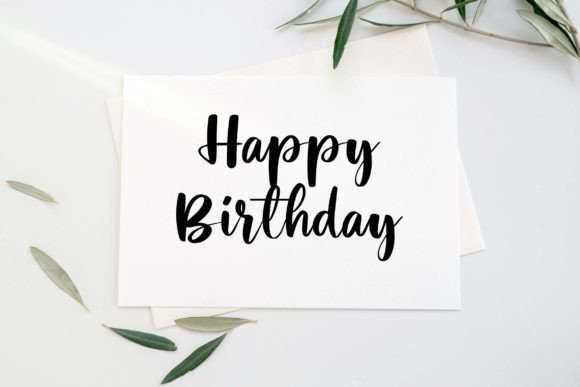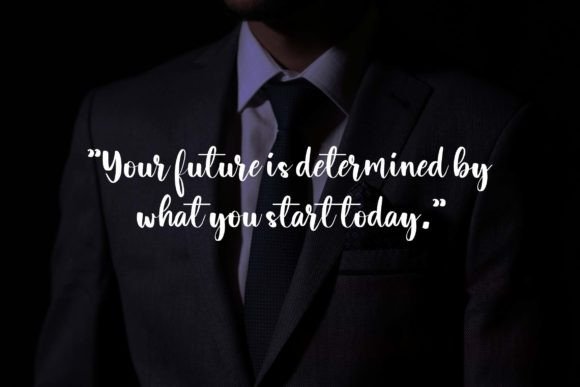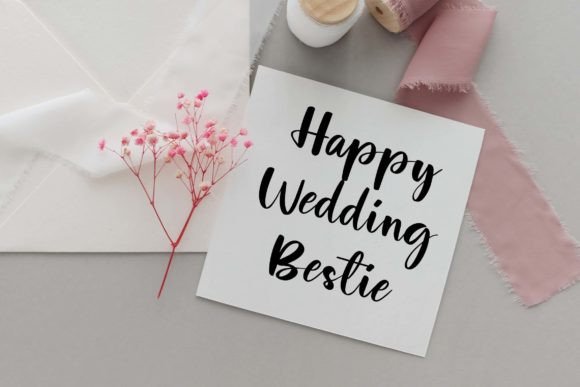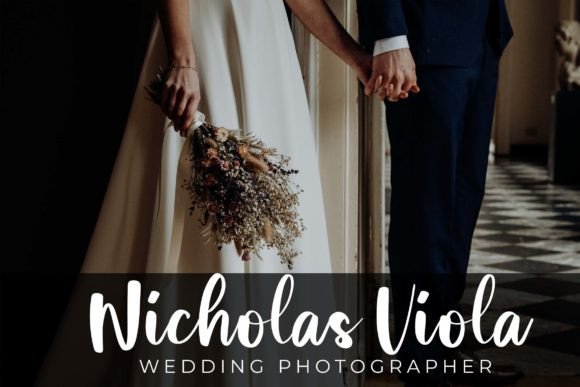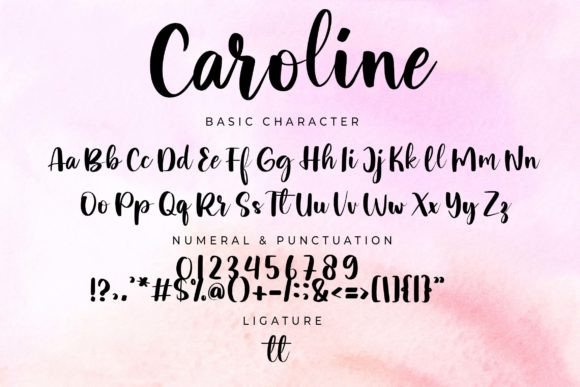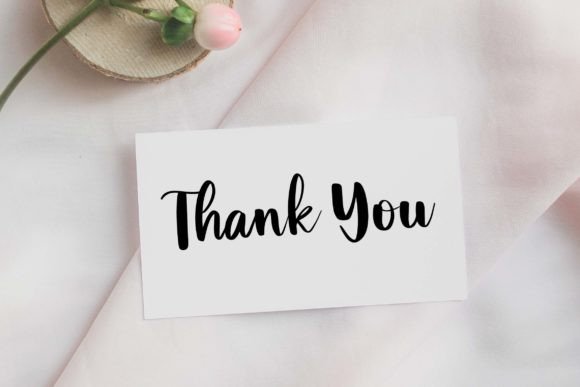
Discover the Elegance of Caroline Font: Elevate Your Designs with a Touch of Sophistication
In the world of typography, few fonts manage to convey the perfect blend of charm and elegance. Caroline Font is one such gem that has captured the hearts of designers and crafters alike. With its unique, handwritten aesthetic, Caroline Font feels equally charming and elegant, making it an ideal choice for a variety of design projects. In this article, we’ll explore the beauty of Caroline Font and how it can elevate your designs with a touch of sophistication.
The Beauty of Caroline Font
Caroline Font boasts a distinctive, cursive style that exudes elegance and refinement. Its flowing lines, delicate strokes, and precise lettering make it a stunning addition to any design. Whether you’re working on wedding invitations, thank you cards, quotes, greeting cards, logos, business cards, or any other project that requires a handwritten touch, Caroline Font is an excellent choice.
One of the standout features of Caroline Font is its versatility. It can be used in a wide range of design projects, from formal events like weddings and galas to more casual applications like blog headers and social media graphics. Its adaptability makes it a valuable asset for designers and crafters who want to add a personal touch to their work.
Wedding designers and event planners, rejoice! Caroline Font is a match made in heaven for your projects. Its elegant, cursive script is perfect for wedding invitations, save-the-date cards, and other stationery. It adds a touch of sophistication and romance to your designs, making them truly unforgettable.
Adding a Personal Touch to Your Designs
In today’s digital age, it’s easy to get lost in the sea of generic fonts and templates. Caroline Font offers a refreshing alternative, allowing you to add a personal touch to your designs. Its unique, handwritten aesthetic makes your work stand out from the crowd, giving it a distinctive and memorable quality.
Why Designers and Crafters Love Caroline Font
So, what makes Caroline Font a favorite among designers and crafters? Here are a few reasons:
- Elegance**: Caroline Font exudes elegance and sophistication, making it perfect for high-end designs.
- Versatility**: Its adaptability makes it suitable for a wide range of design projects.
- Uniqueness**: Its distinctive, handwritten aesthetic sets it apart from more generic fonts.
- Easy to Read**: Despite its elegant style, Caroline Font remains easy to read, even in smaller sizes.
Tips for Using Caroline Font Effectively
To get the most out of Caroline Font, here are a few tips to keep in mind:
- Pair it with contrasting fonts**: Combine Caroline Font with a bold, sans-serif font to create visual interest.
- Use it sparingly**: While Caroline Font is beautiful, it’s best used in moderation to avoid overwhelming the design.
- Experiment with colors**: Try pairing Caroline Font with different colors to add depth and dimension to your design.
In conclusion, Caroline Font is a stunning addition to any design project. Its elegant, cursive script and versatile nature make it perfect for a wide range of applications. Whether you’re a designer, crafter, or DIY enthusiast, Caroline Font is sure to elevate your work with a touch of sophistication. So why not give it a try and see the magic for yourself?
With Caroline Font, you can add a personal touch to your designs, making them truly unforgettable. Its unique, handwritten aesthetic and adaptability make it an excellent choice for designers and crafters looking to elevate their work. So, go ahead and explore the world of Caroline Font – your designs will thank you!